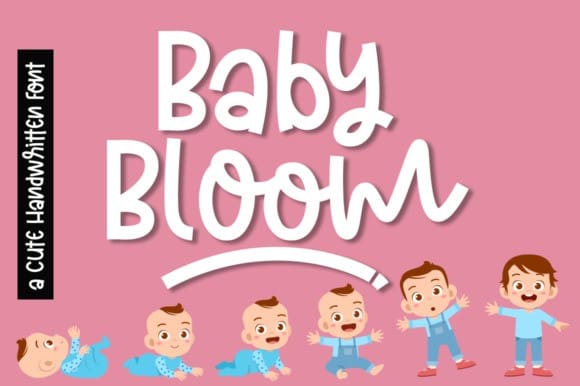
Baby Bloom Font
Baby Bloom is a cute handwritten font. Get creative with its childlike playfulness, and use it to brighten up any kids and school project!